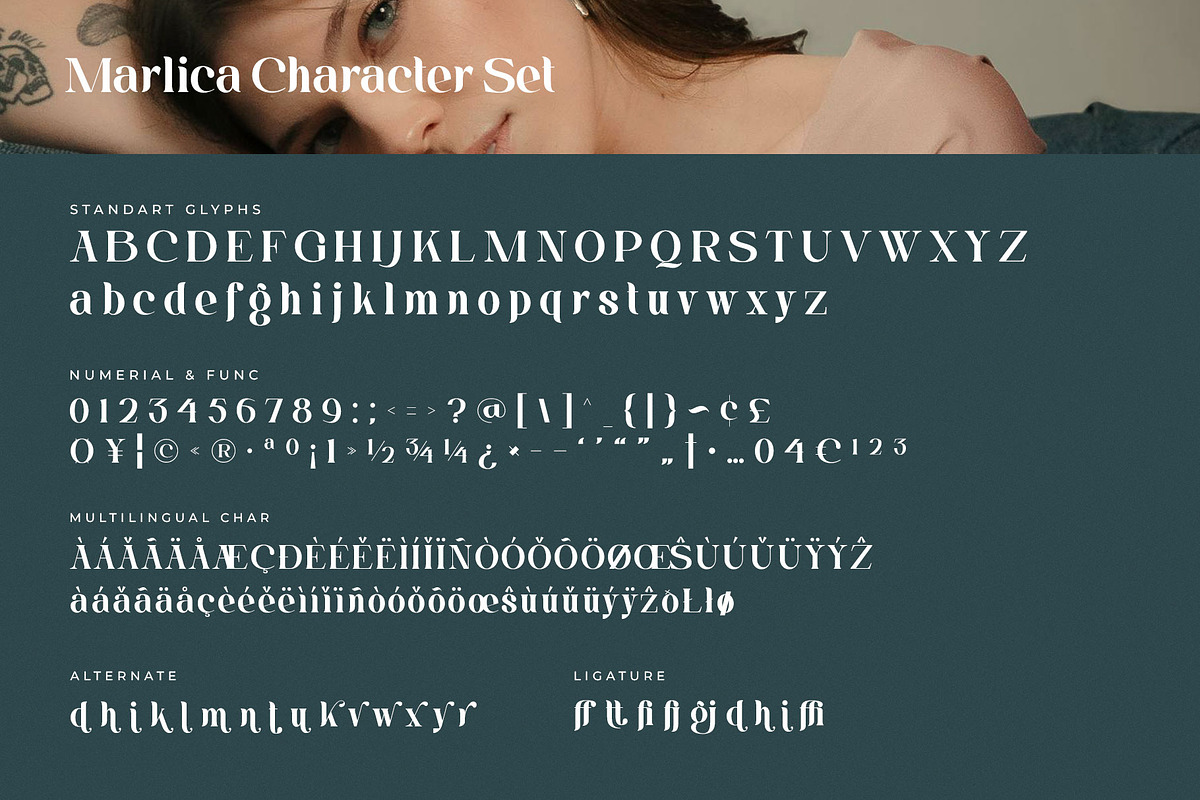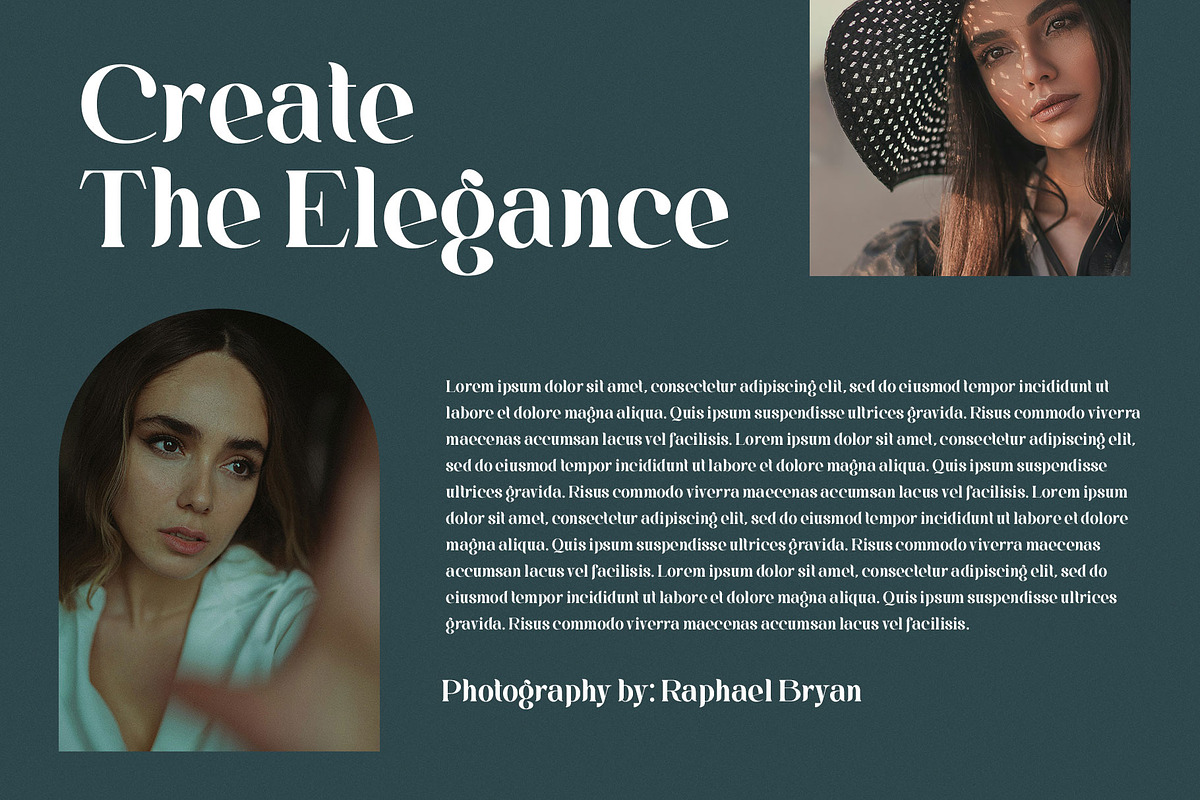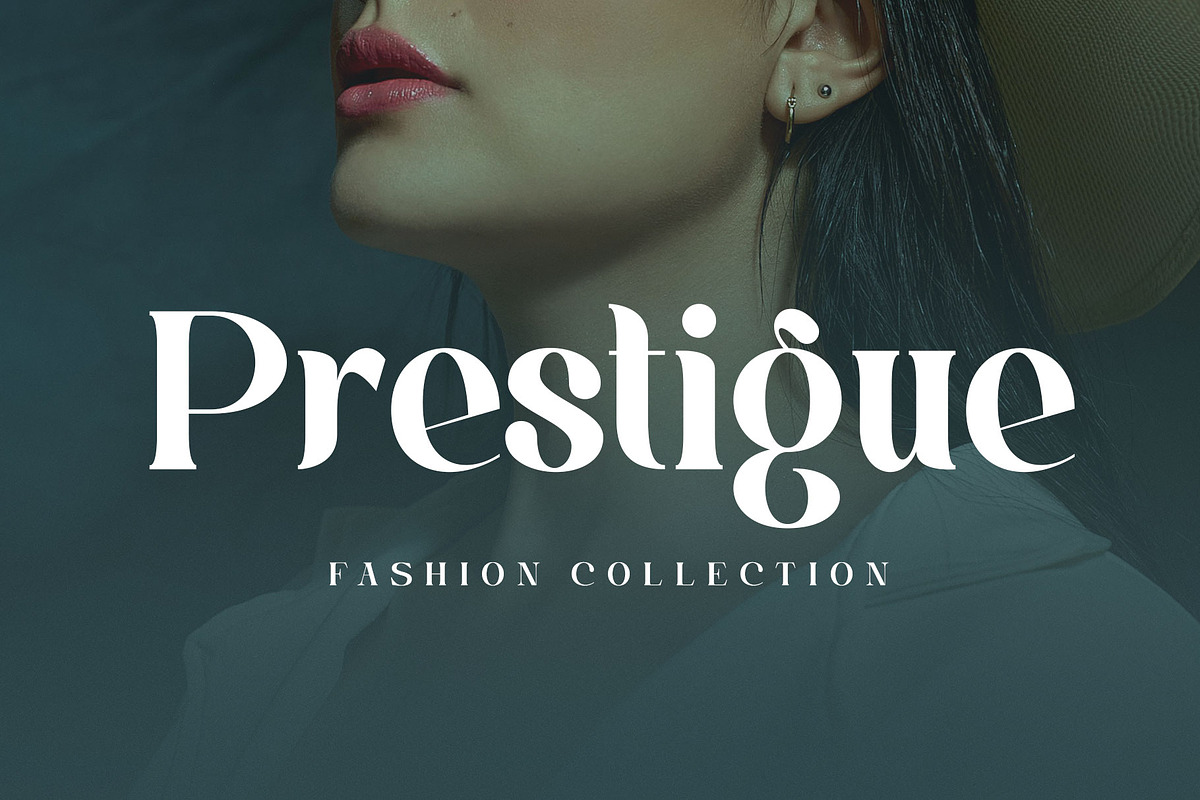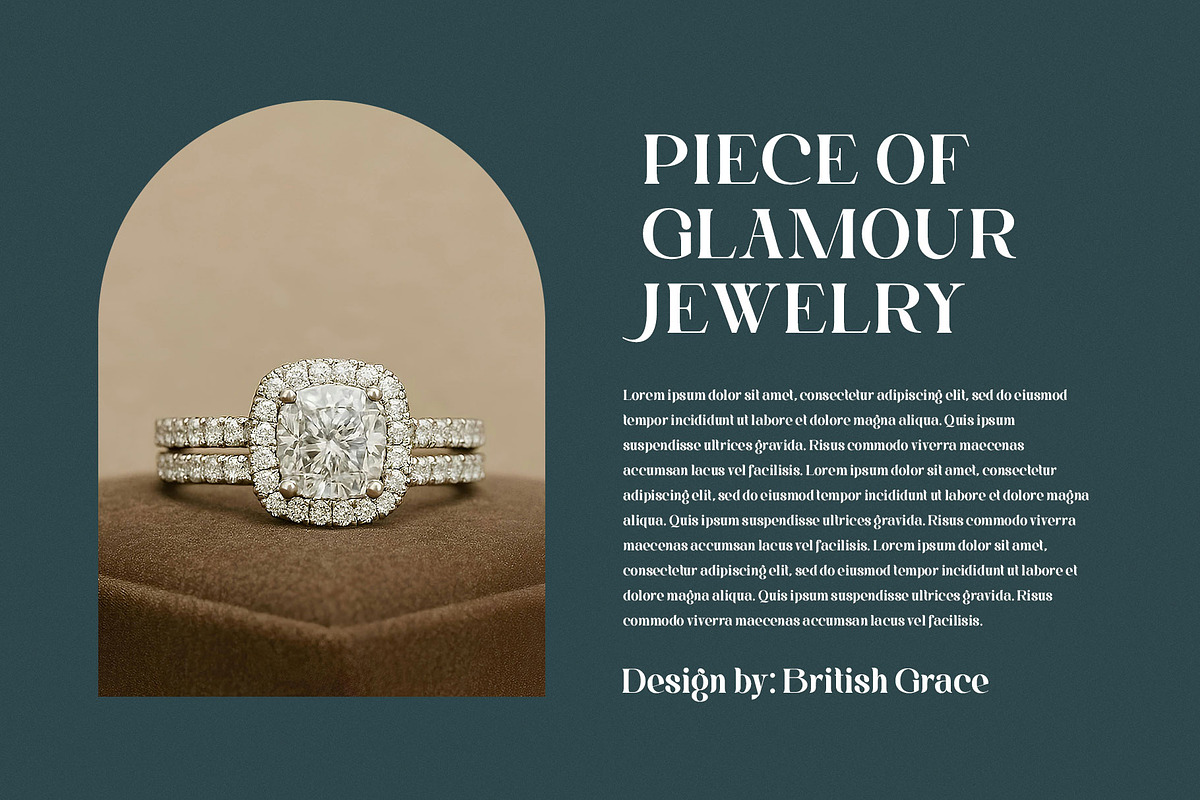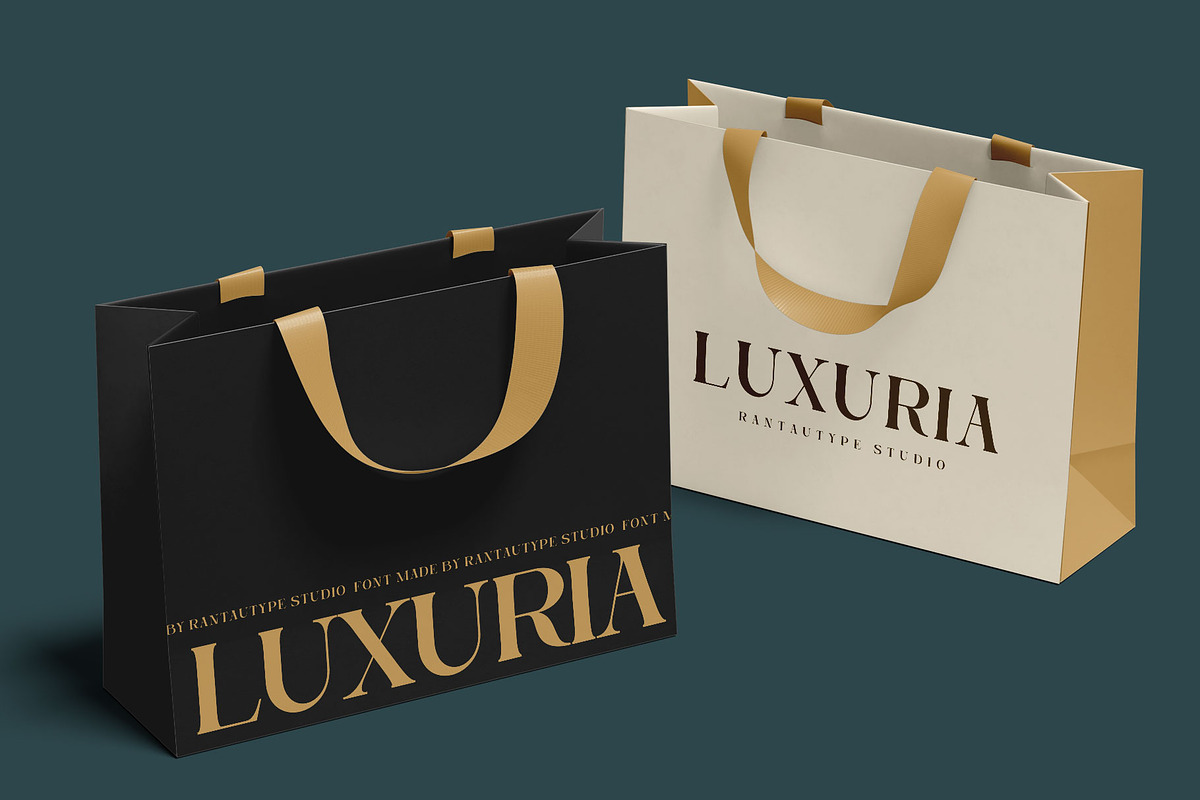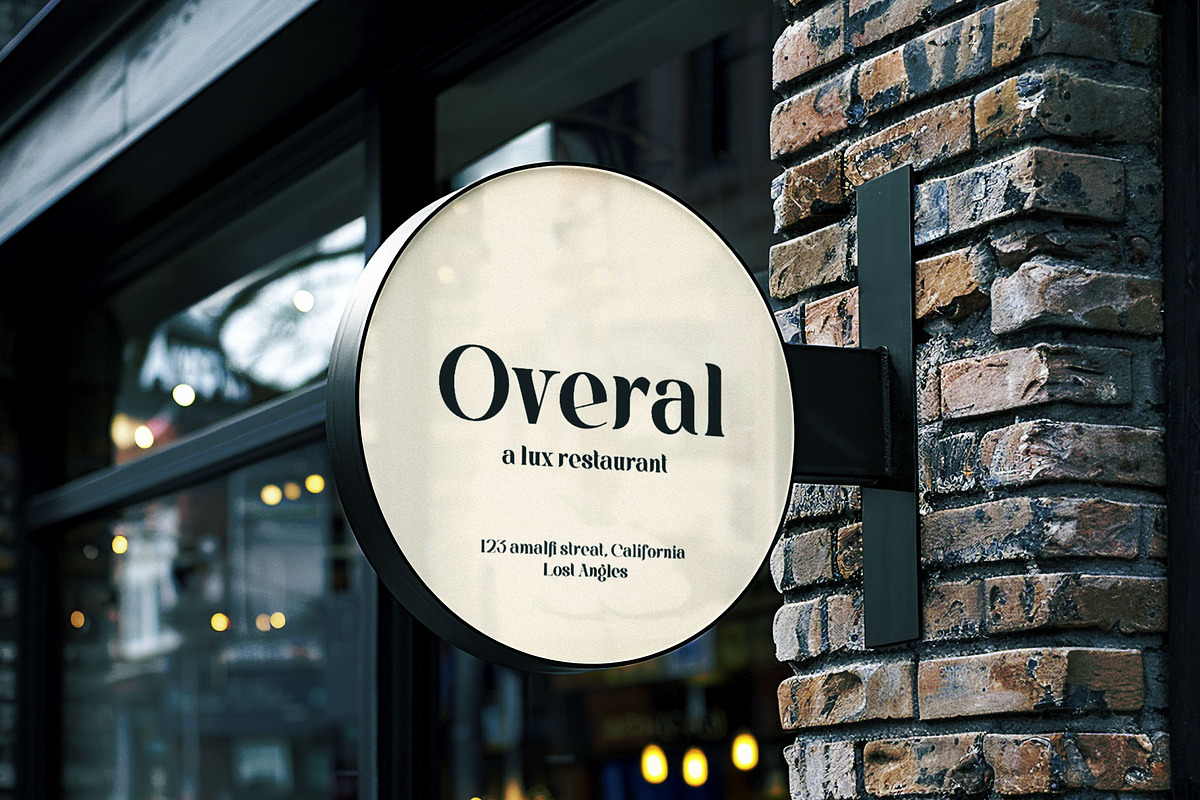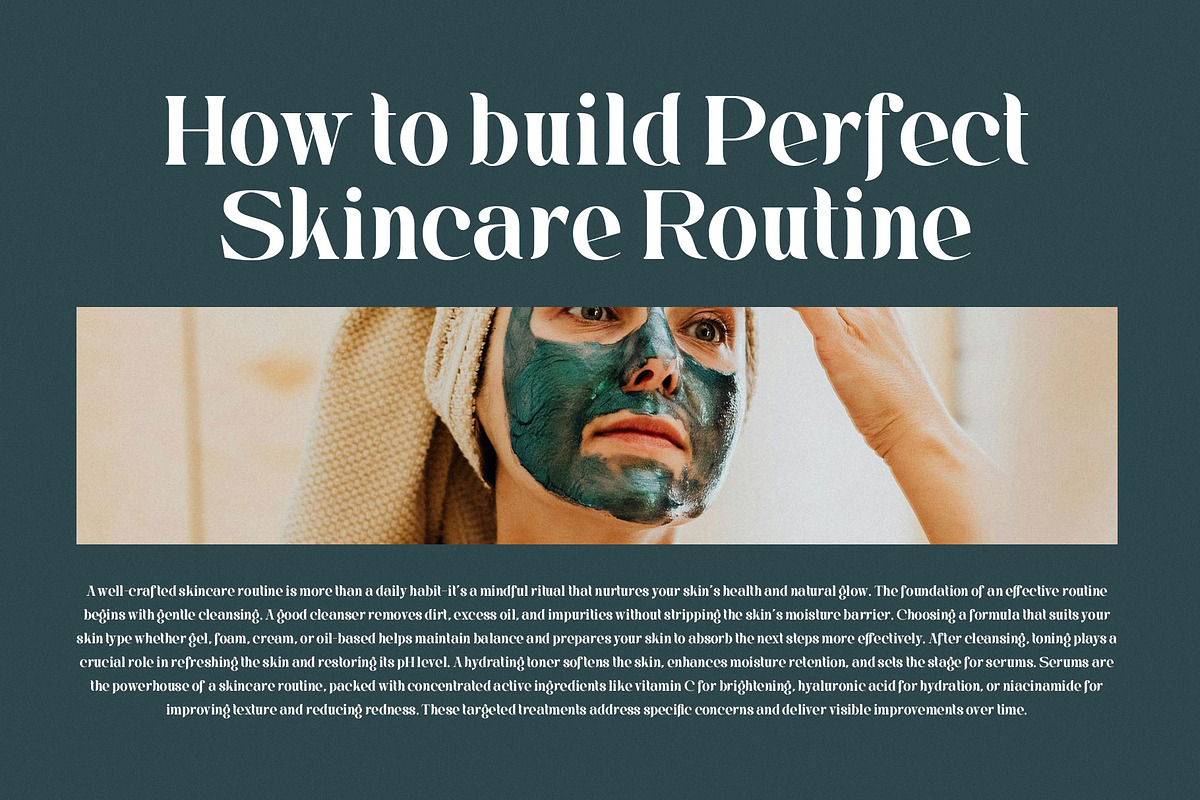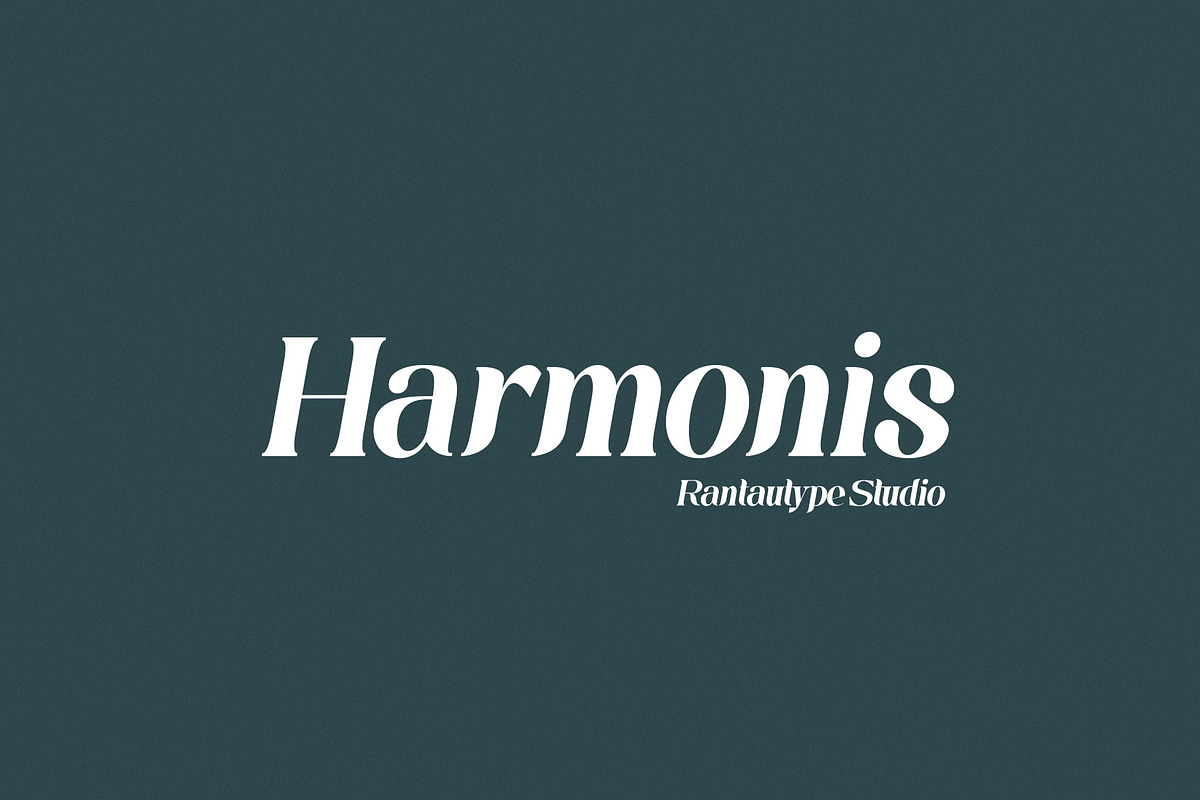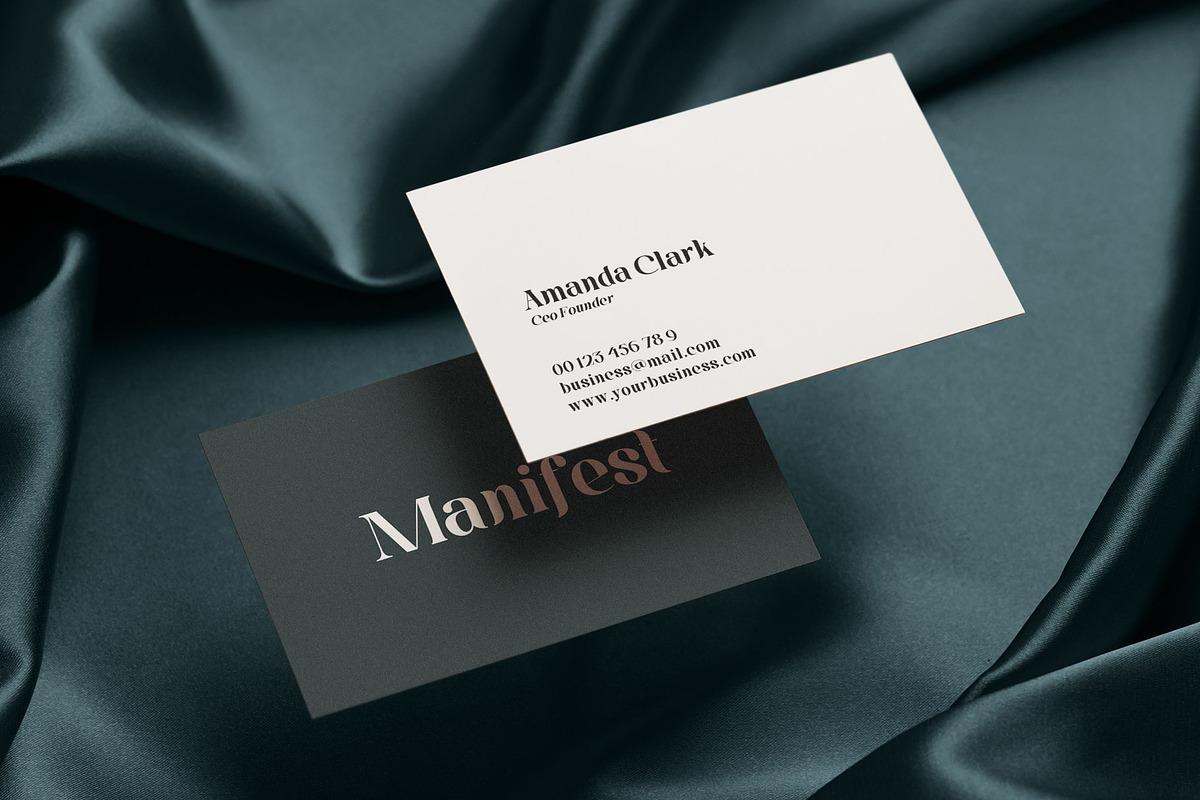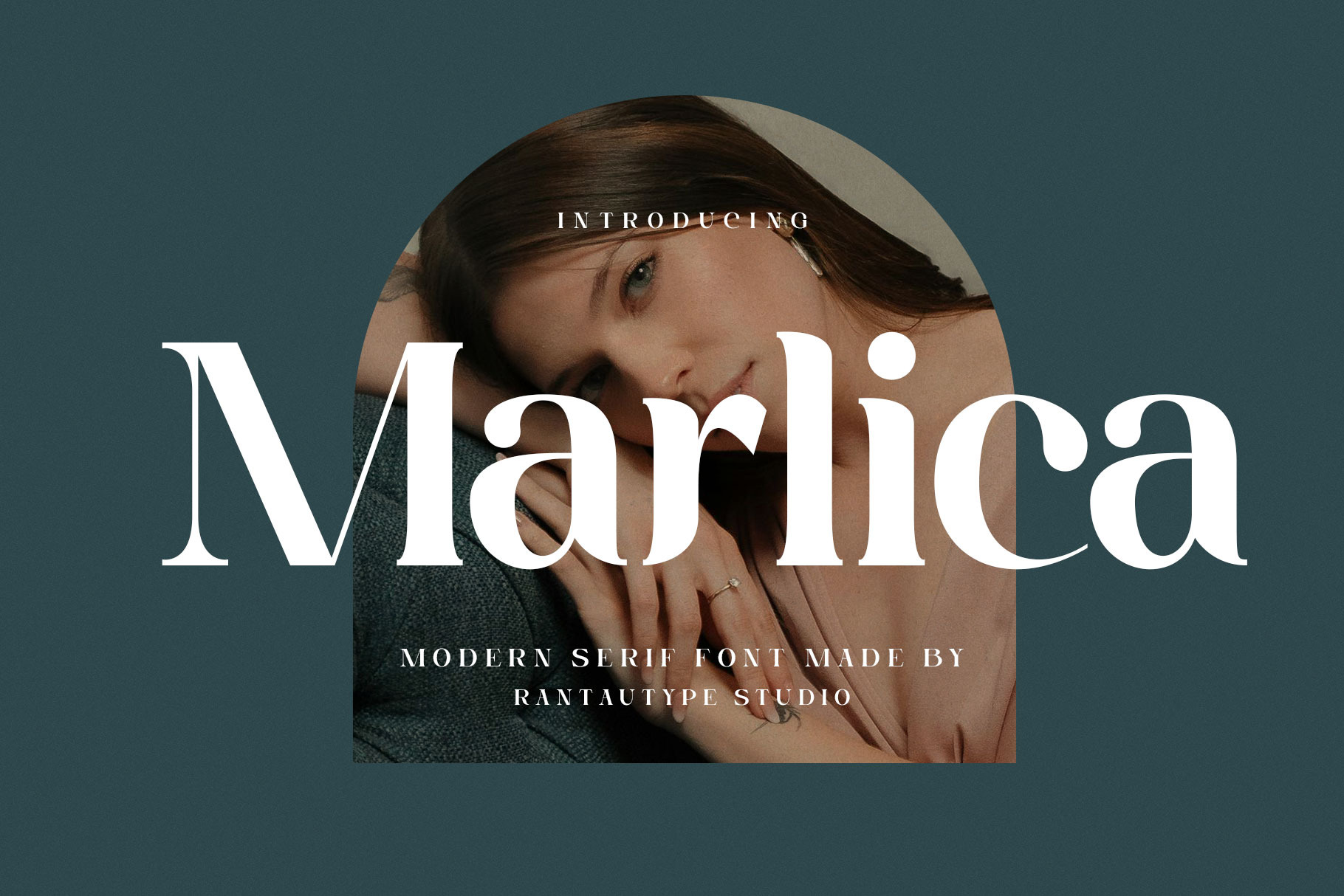
Marlica Modern Serif Font
Marlica is modern serif font embrace grace and feminity. Marlica is a perfectly choice for any creative endeavor, creating, modern, lifestyle design such as logotype, title, cover, branding, invitations, wedding designs, display and magazine, social media posts, advertisements, printed quotes, product packaging, corporate brand, product designs, labels, photography, watermarks, special events and any other project with elegant touch.
- Standart Glyphs
- Alternate and ligature
Fonts include Multilingual Character for: Afrikaans, Albanian, Asu, Basque, Bemba, Bena, Breton, Chiga, Cornish, Dutch, English, Estonian, Filipino, Finnish, Friulian, Galician, Gusii, Indonesian, Irish, Italian, Kabuverdianu, Kalenjin, Kinyarwanda, Luo, Luxembourgish, Luyia, Machame, North, Oromo, Portuguese, Quechua, Romansh, Rombo, Rundi, Rwa, Samburu, Sango, Sangu, Scottish, Gaelic, Sena, Shambala, Shona, Soga, Somali, Spanish, Swahili, Swedish, Swiss, German.